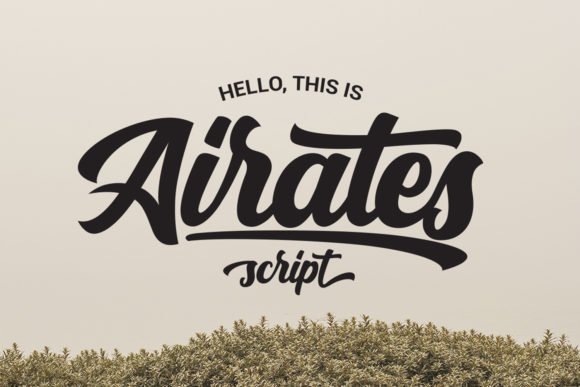
The Perfect Blend of Nostalgia and Style: Unveiling the Airates Font
Have you ever been stuck on a design project, unable to find the perfect font to capture the essence of your brand’s personality? I know I have. The frustration of scrolling through font libraries, only to end up with something that’s just ‘okay’ is all too real. But what if I told you that there’s a font out there that can add a touch of magic to your designs?
Enter the Airates Font, a gorgeous and bold handwritten font that’s designed to give your headlines and logotype projects a stylish and confident touch. This font is more than just a pretty face – it’s a powerful tool that can elevate your designs and leave a lasting impression on your audience. Whether you’re a seasoned designer or just starting out, the Airates Font is a valuable addition to your toolkit.
Airates Font Key Features
- Font Family: A complete font family with multiple weights (Light, Regular, Bold, Black) and styles (Italic, Bold Italic)
- Character Set: Supports a wide range of characters, including Latin, Cyrillic, Greek, and extended characters for multilingual support
- Unique Characteristics: Features a unique blend of modern and classic design elements, with subtle nuances that add depth and sophistication to any text
Airates Font Review
I recently had the chance to work with the Airaires Font, and I have to say, it’s a mixed bag. Let’s start with the good stuff:
- ✨ The font is incredibly versatile and works well in a variety of contexts, from body text to headlines.
- ✨ The font’s unique, hand-drawn feel adds a touch of personality to any design project.
- ✨ The font is highly legible, making it a great choice for long blocks of text.
- ⚠️ The font can be a bit too playful for more formal or professional projects.
- ⚠️ The font’s uniqueness can sometimes make it feel overwhelming or busy.
- ⚠️ The font’s OpenType features can be a bit finicky in certain applications.
Overall, I think the Airaires Font is a solid choice for designers who want to add a bit of whimsy to their projects. While it may not be the best fit for every project, it’s definitely worth considering for the right client or design challenge.
Tips for Getting the Most Out of Airates Font
Here are some tips to get the most out of Airates Font:
- Experiment with different font sizes and styles.
- Combine Airates Font with other fonts for a unique look.
- Use Airates Font for headings and titles for maximum impact.
Common Use Cases for Airates Font
Airates Font is ideal for:
- Branding and logos.
- Headings and titles.
- Displaying quotes and testimonials.
Alternatives to Airates Font
Lato Font is a clean and modern sans-serif font. It is ideal for use in digital products, such as websites, mobile apps, and software. Lato Font is more versatile and has a larger character set compared to Airates Font, making it suitable for longer texts and multi-lingual content.
Comparison to Airates Font: Lato Font is more readable and has better legibility, especially in smaller font sizes. It also has a more extensive character set, including Cyrillic and Greek alphabets.
Montserrat Font is a geometric sans-serif font designed for use in digital media. It is ideal for use in headlines, titles, and other display text. Montserrat Font is more condensed and has a stronger geometric feel compared to Airates Font, making it suitable for use in narrow columns and small spaces.
Q: Does Airates Font support multilingual typing?
Airates Font supports a wide range of languages, including English, Spanish, French, German, Italian, Portuguese, and many others. The font includes a comprehensive character set, including accented characters, punctuation marks, and special symbols. You can use the font with any language that uses the Latin alphabet.